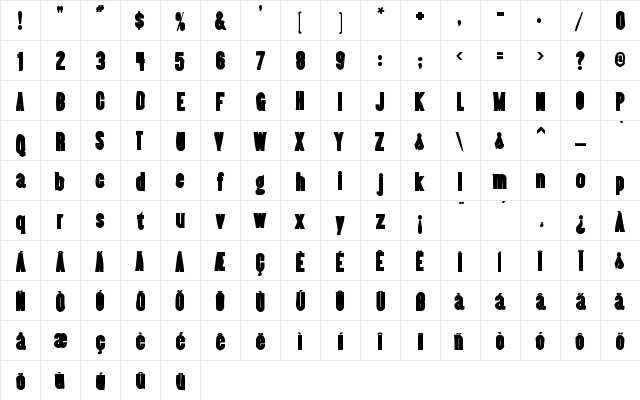
Almonte Ink Regular
Design Context for Almonte Ink Typeface
Almonte Ink takes a measured approach to typography — its balanced proportions and neutral character make it a reliable workhorse for both digital and print work.